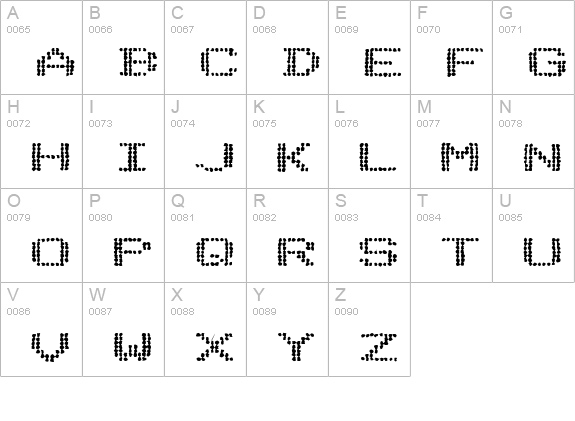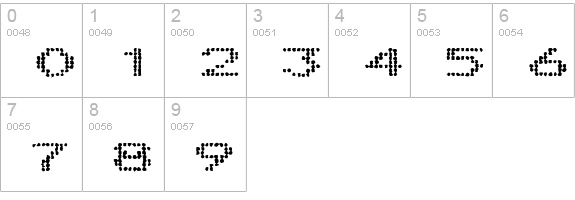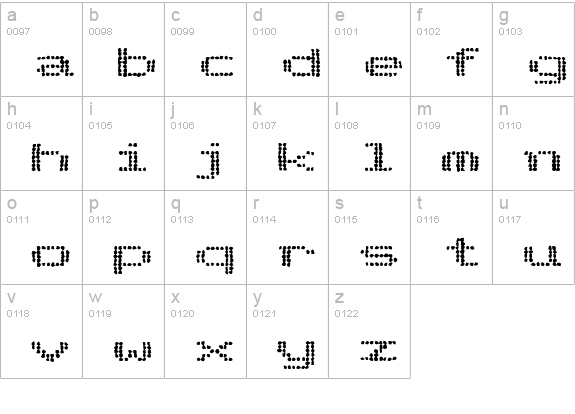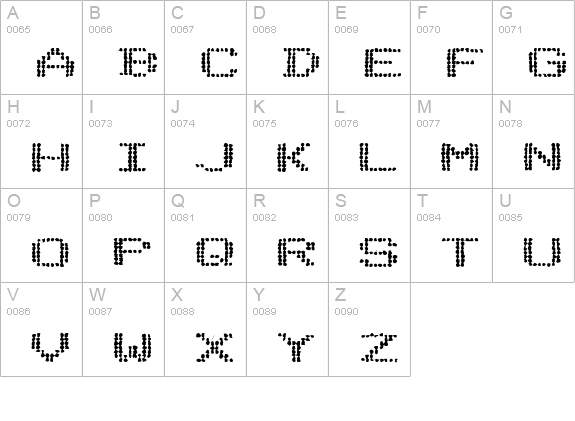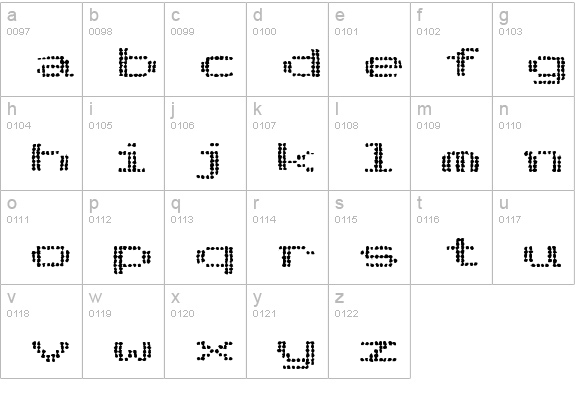
Telidon Ink Ex Bold is a strong, high-contrast variant in the Telidon typeface family \xE2\x80\x94 well suited to headlines, attention-grabbing titles, and strong calls-to-action.
Telidon Ink Ex Bold is a bold and dynamic font that exudes strength and character. With its unique ink-like texture, this font adds a touch of creativity and originality to any design project. Whether used for headlines, logos, or branding materials, Telidon Ink Ex Bold commands attention and makes a bold statement. What sets Telidon Ink Ex Bold apart is not only its striking appearance but also the fact that it is available for free download at FontsMarket.com. This means that you can easily access this impressive font and incorporate it into your projects without any cost. Don't miss out on the opportunity to add Telidon Ink Ex Bold to your font collection and elevate your designs with its powerful and expressive aesthetic.